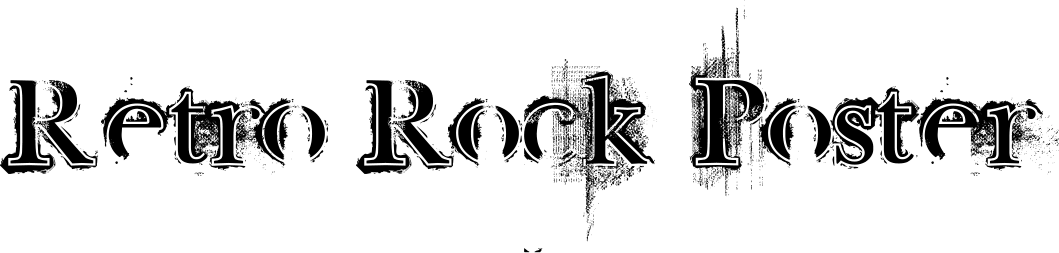
Retro Rock Poster Font
Retro Rock Poster font is one of the most awesome fonts we have introduced to you. This retro and destroy font is in the form of characters that are fading a bit. Our initial suggestion is to use it for music posters and…
Retro Rock Poster font is one of the most awesome fonts we have introduced to you. This retro and destroy font is in the form of characters that are fading a bit.
Our initial suggestion is to use it for music posters and bands. Our second recommendation is not to use it in small dimensions because it becomes illegible. In addition, you can use it in the design of flyers and logo fonts for many music bands and musical instruments.